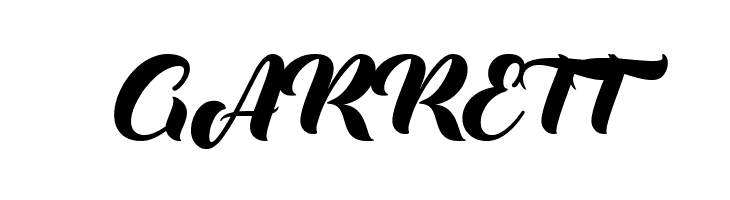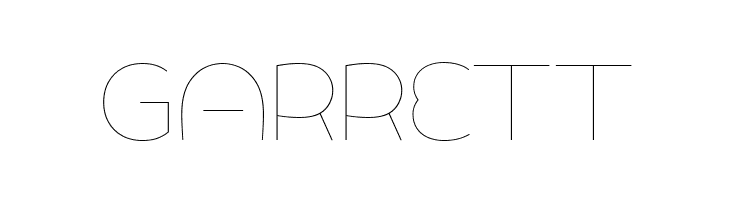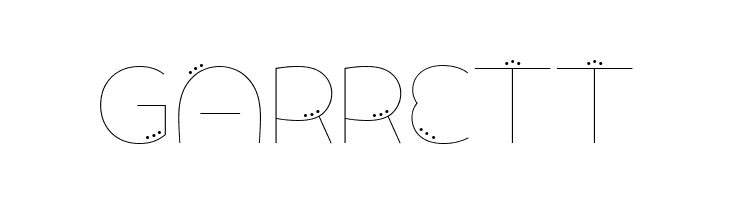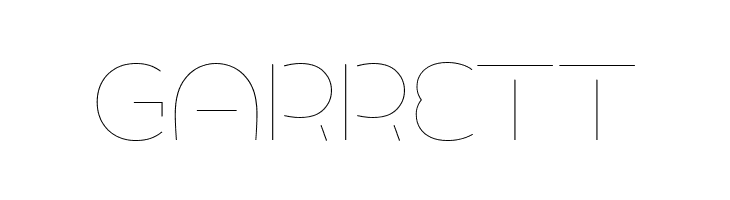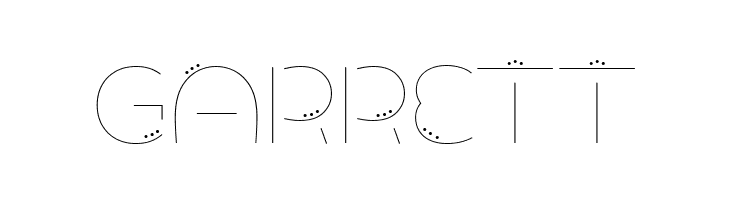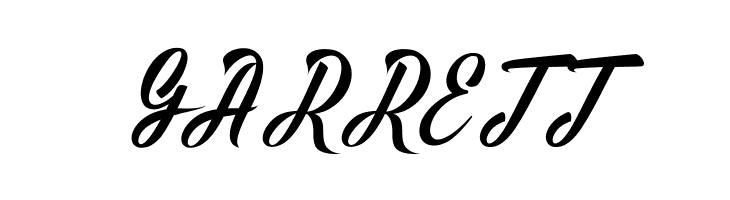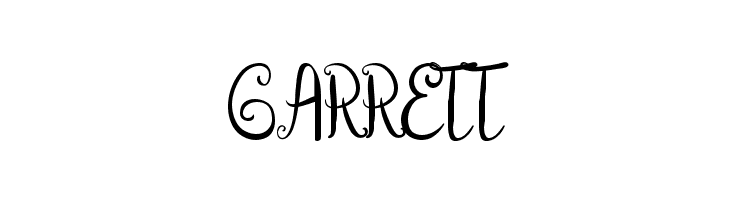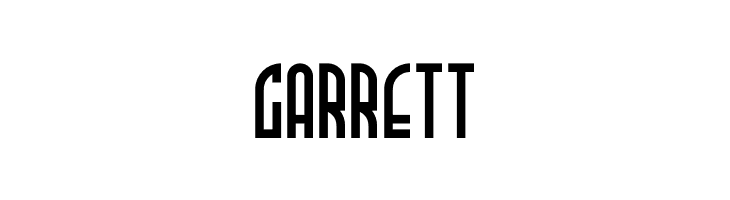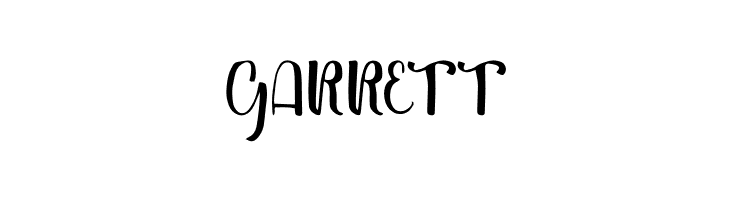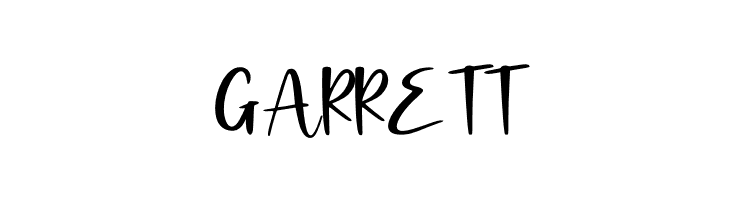
• AllezHop
• AllHands
A decorative font composed entirely of pointing hand illustrations.
• AllHookedUp
A modern serif font with unique hook-like serifs and smooth curves.
• Allia
An elegant, flowing script font with high contrast and graceful curves.
• AllianaScript
An elegant script font with flowing, interconnected characters and refined swashes.
• AllianaScript
An elegant script font with ornate swashes and flowing, interconnected letters.
• Alliando
An elegant, flowing script font with high contrast and graceful, elongated letterforms.
• Allianta FREE
A graceful script font with fluid, cursive strokes and elegant design.
• Allianta Personal Use Only
A bold, flowing script font with interconnected characters and a modern twist.
• AlliantaFREE
A sophisticated script font with elegant, flowing cursive strokes.
• Allice Demo
A whimsical script font with playful curls and elegant swirls.
• allicia
A playful, hand-drawn script font with bold strokes and elegant curves.
• Allience-Demo
A bold, geometric, and modern font with tight spacing and a futuristic appeal.
• Alliens Personal Use Only
A bold, brush-style font with an energetic and artistic flair.
• Allietta
A dynamic, cursive script font with flowing, interconnected letters and varied stroke thickness.
• Alligator
A bold, flowing script font with elegant, cursive letterforms.
• Alligator
A bold, cursive font with flowing, interconnected letters and elegant style.
• alligator fantastic
• Alligator Puree
• Alligator Soap Bold
• Alligators
• AlligatorSky-Regular
A playful, handwritten font with bold, irregular strokes and artistic flair.